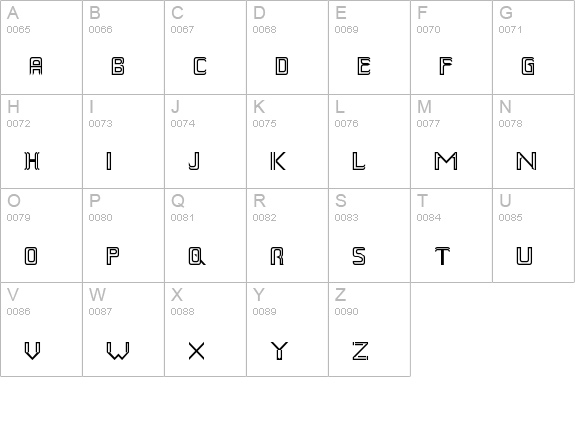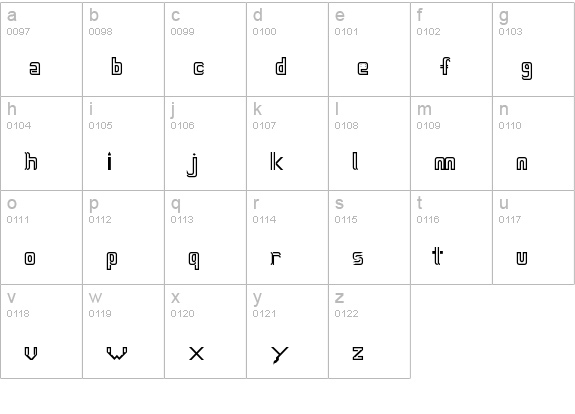
My Best Friend Regular Font Details
My Best Friend Regular is the standard, neutral variant in the My typeface family \xE2\x80\x94 well suited to general body text, paragraphs, and standard typographic work.
Introducing My Best Friend Regular font, a delightful and versatile typeface that is sure to become your new best friend in the world of design. With its clean lines and timeless appeal, this font is perfect for any project, whether it be creating eye-catching logos, designing captivating posters, or crafting beautiful wedding invitations. My Best Friend Regular font exudes a sense of warmth and friendliness, making it the ideal choice for projects that require a personal touch. Its classic yet contemporary design allows for seamless integration into a wide variety of design styles, providing endless possibilities for creative expression. One of the best aspects of My Best Friend Regular font is that it is freely available to download at FontsMarket.com. This means that you can easily access and utilize this incredible typeface without any cost or hassle. Whether you are a professional designer or a design enthusiast, this font offers you the opportunity to enhance your work with a high-quality, freely accessible resource. Featuring a comprehensive character set, My Best Friend Regular font includes uppercase and lowercase letters, numerals, punctuation marks, and special characters. This ensures that you have everything you need to bring your creative vision to life. With its exceptional readability and balanced proportions, My Best Friend Regular font is a true testament to the power of well-crafted typography. Its versatility and timeless appeal make it a must-have addition to any designer's toolkit. So why wait? Discover the endless possibilities that My Best Friend Regular font has to offer and unlock your creativity today. Download this incredible typeface for free at FontsMarket.com and let your designs shine with a touch of elegance and charm.